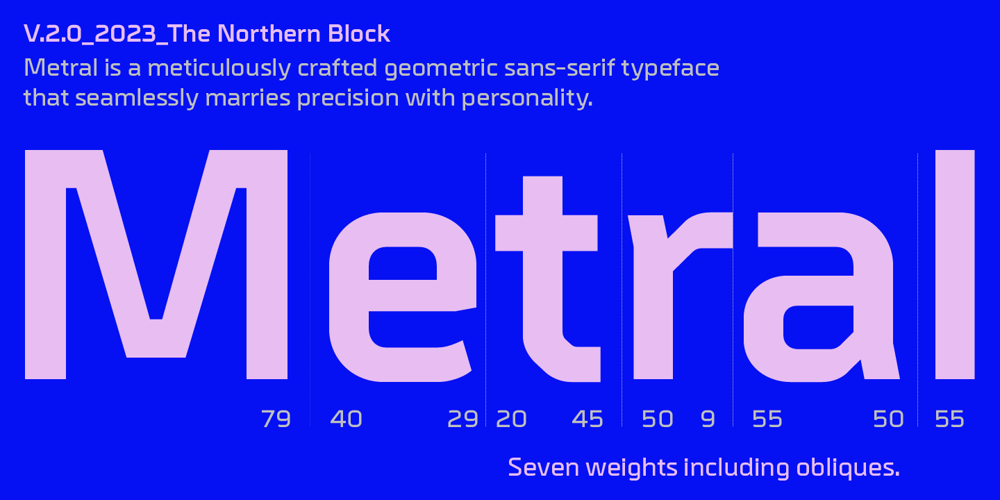
Metral Font Family was designed by Jonathan Hill and published by The Northern Block. Metral contains 14 styles and family package options. Metral stands out as a geometric sans-serif font with a meticulous design that strikes a balance between precision and approachability. Its clean lines adhere to a grid structure, while the introduction of smooth corners adds a touch of warmth and friendliness. This fusion of geometric rigor and subtle detailing makes Metral well-suited for diverse design purposes, from contemporary branding to editorial layouts. The typeface’s sharp interplay between structure and nuance contributes to both a polished and inviting aesthetic, making Metral a versatile choice for a variety of visual communication needs.Details include seven weights with obliques and over 650 characters per style. OpenType features consist of digital numerals, numerators, denominators, tabular, fractions, alternative J, K, R, a, k, g, t, y, and language support covering Western, Southern and Central Europe—remastered to version 2.0 for enhanced OpenType features and usability.